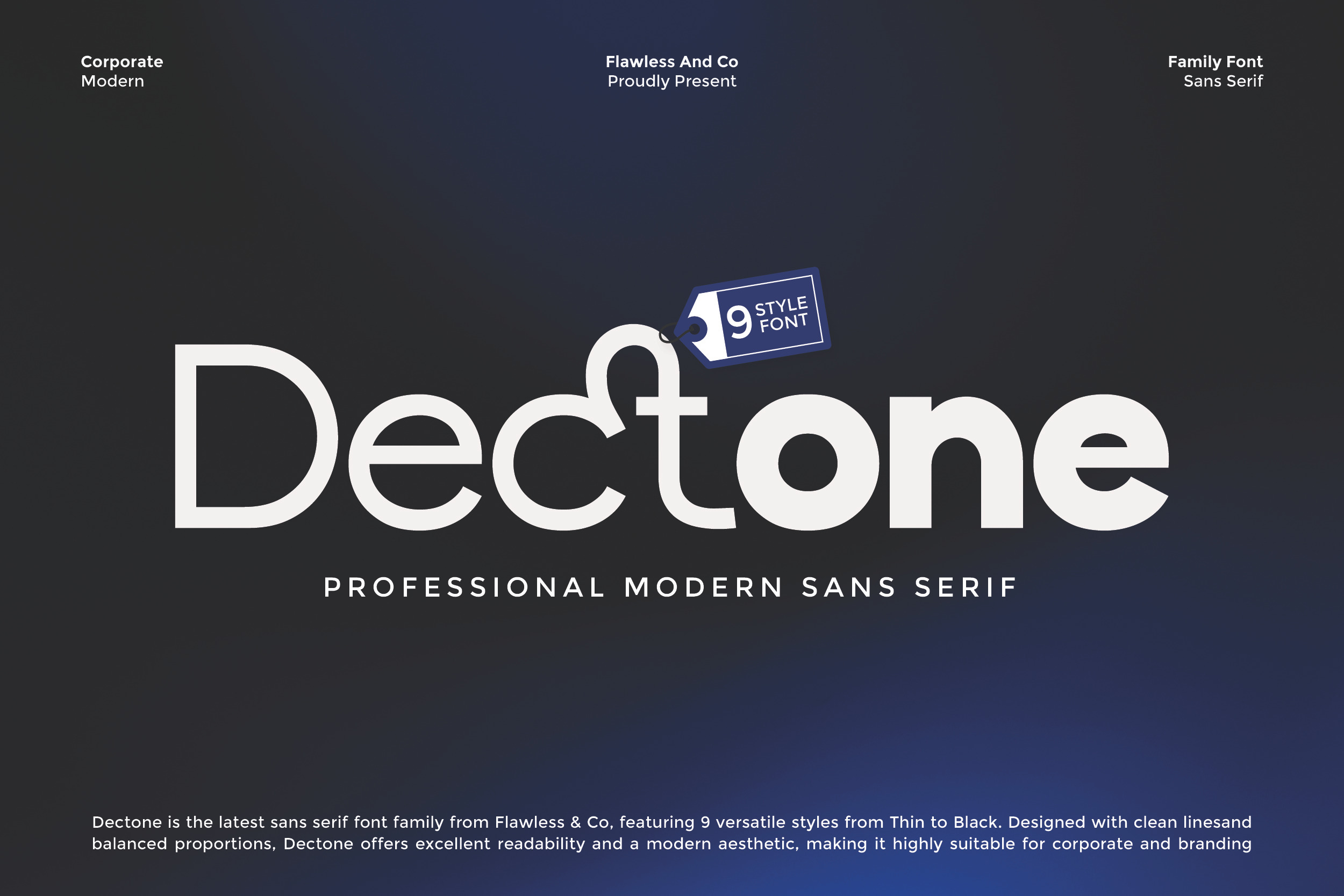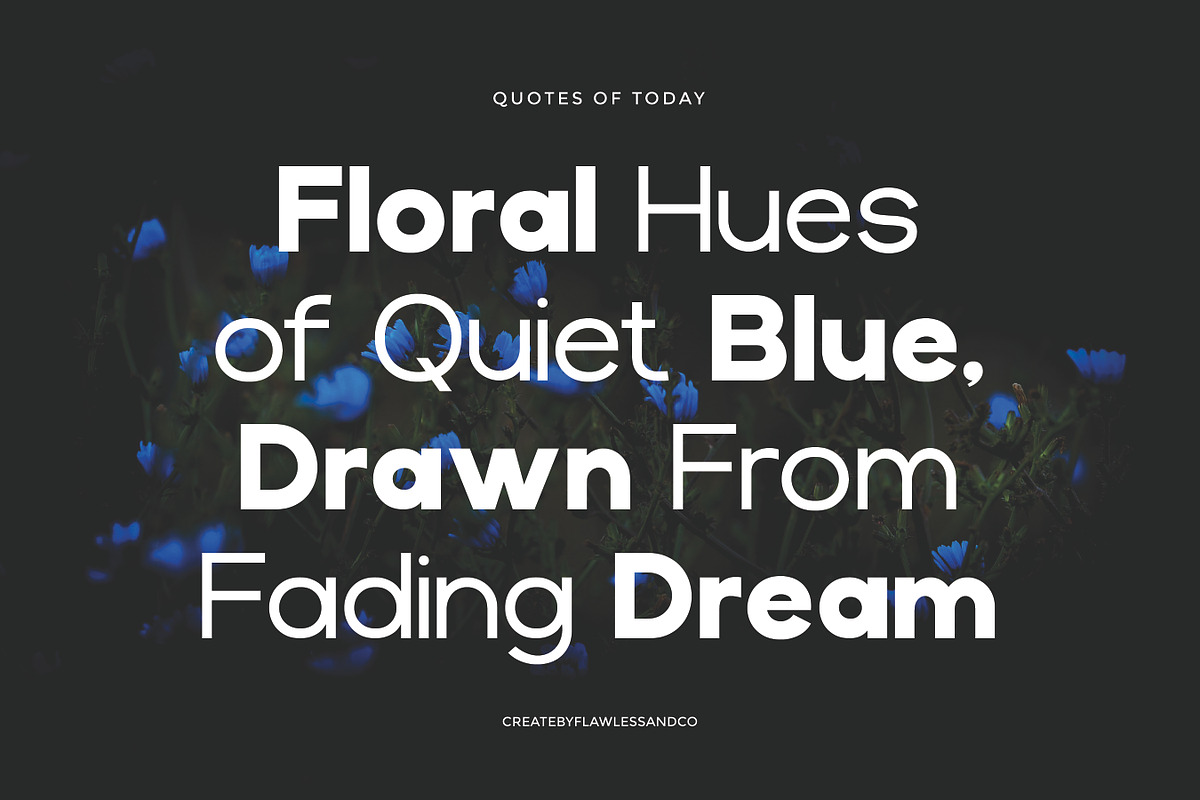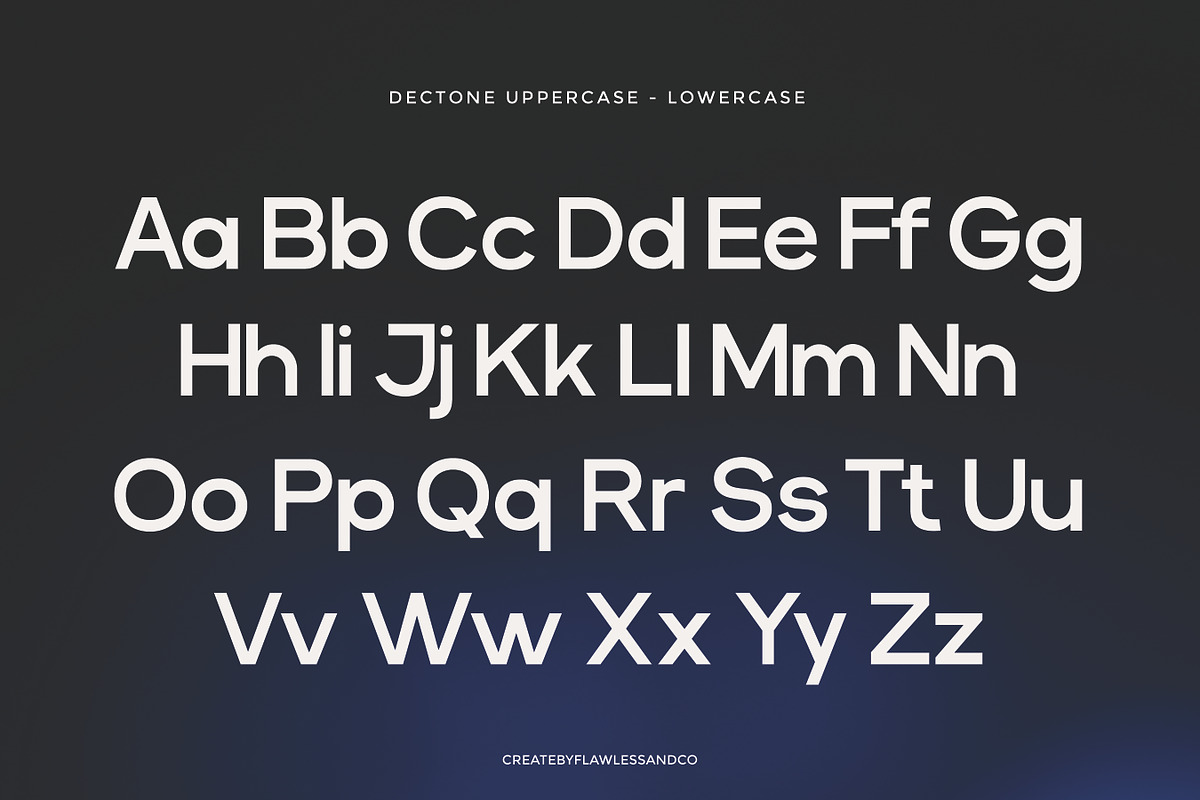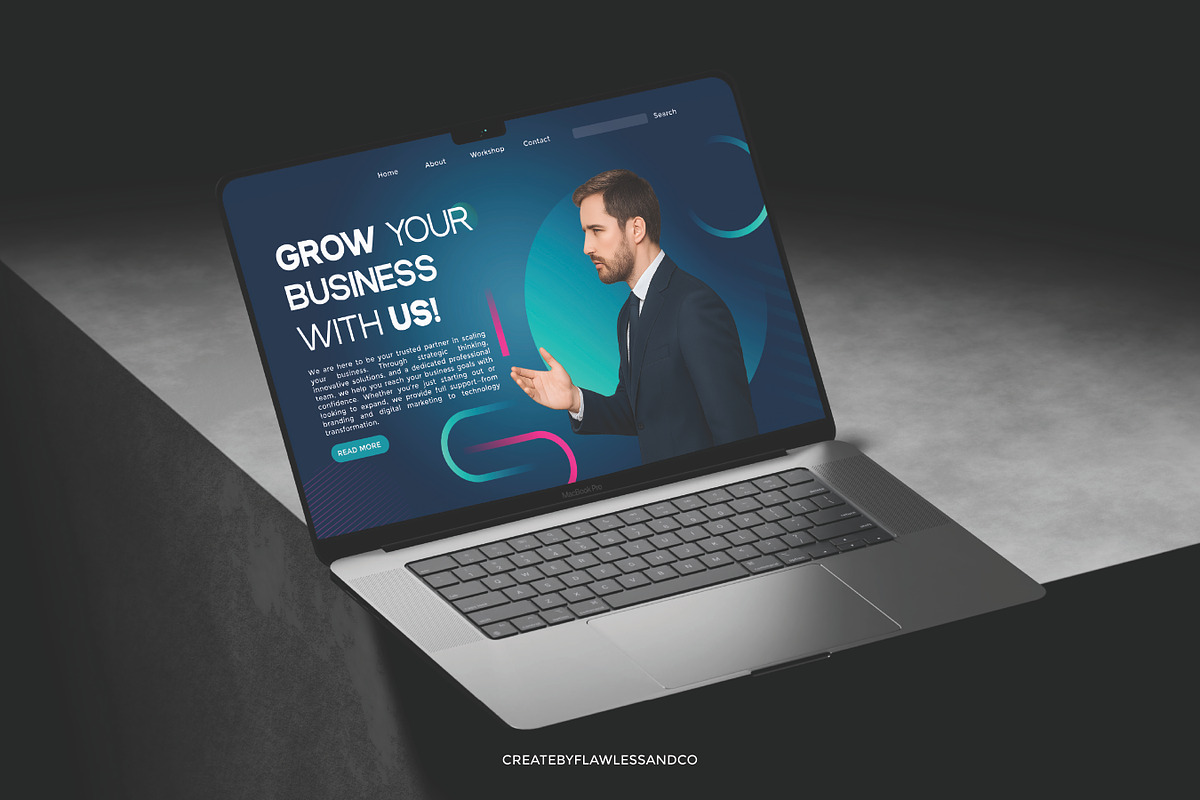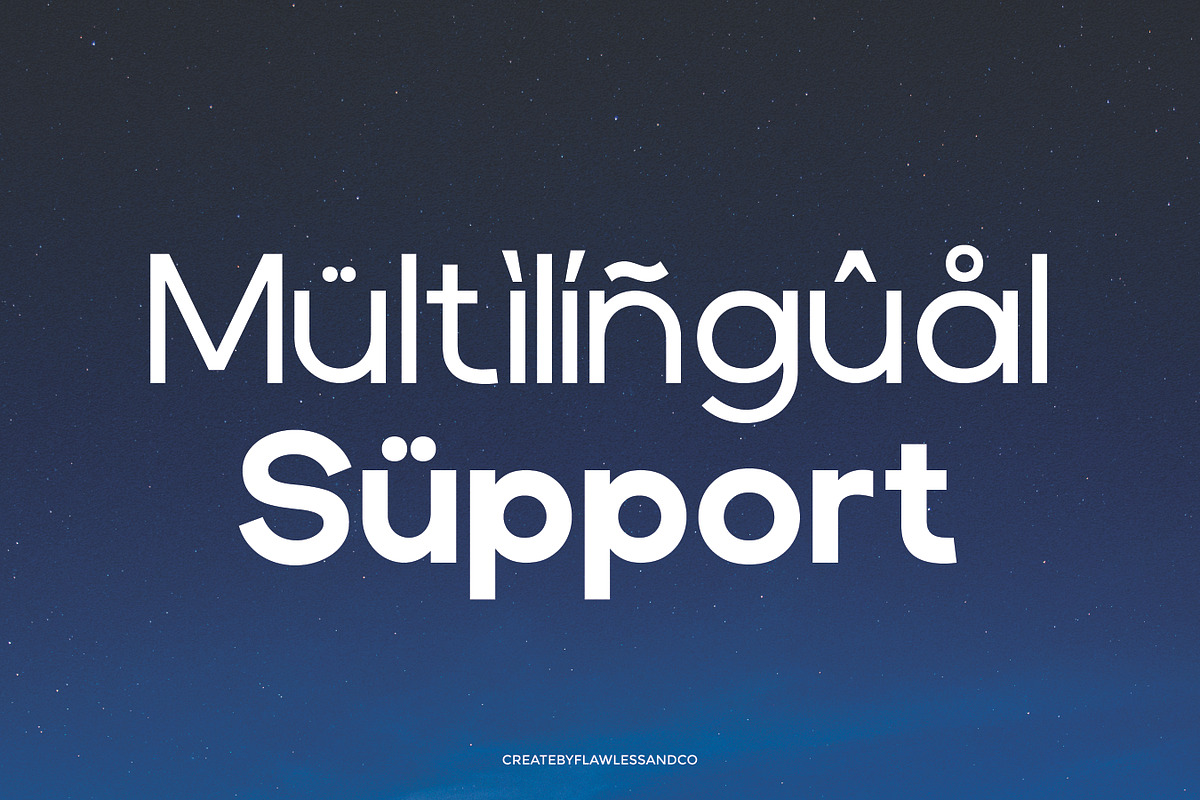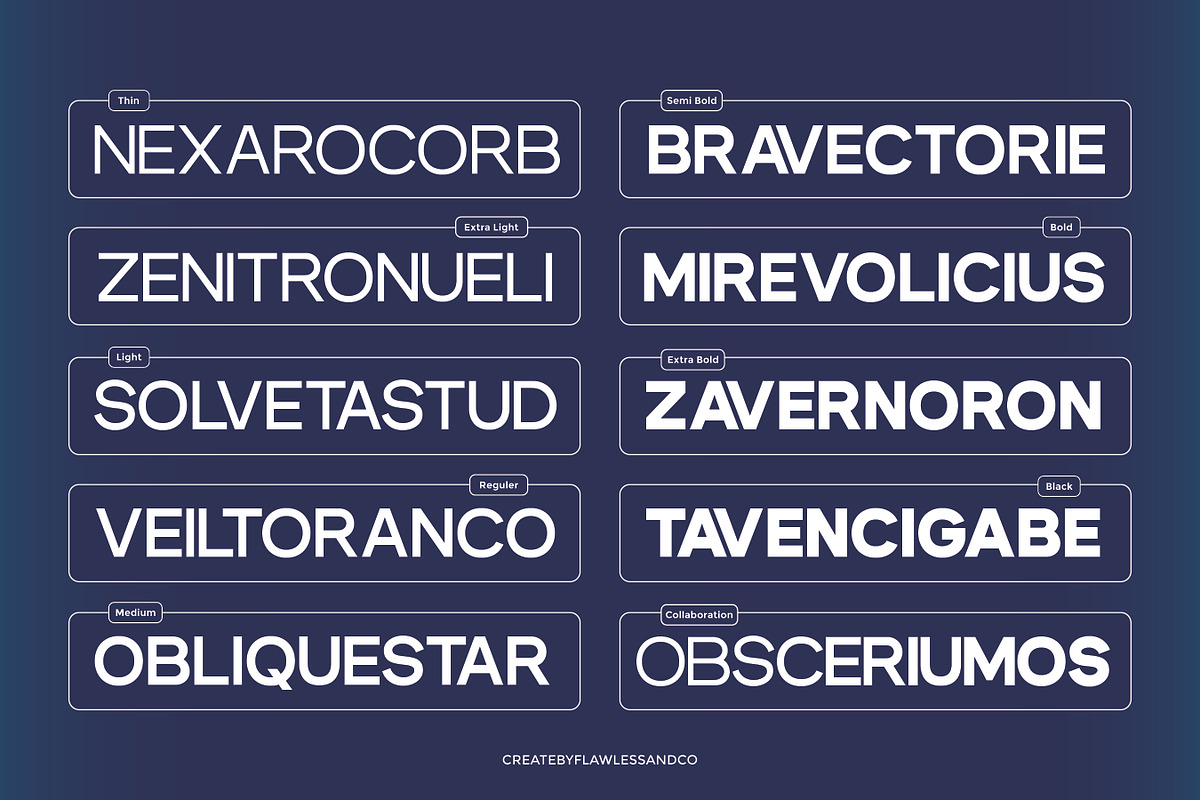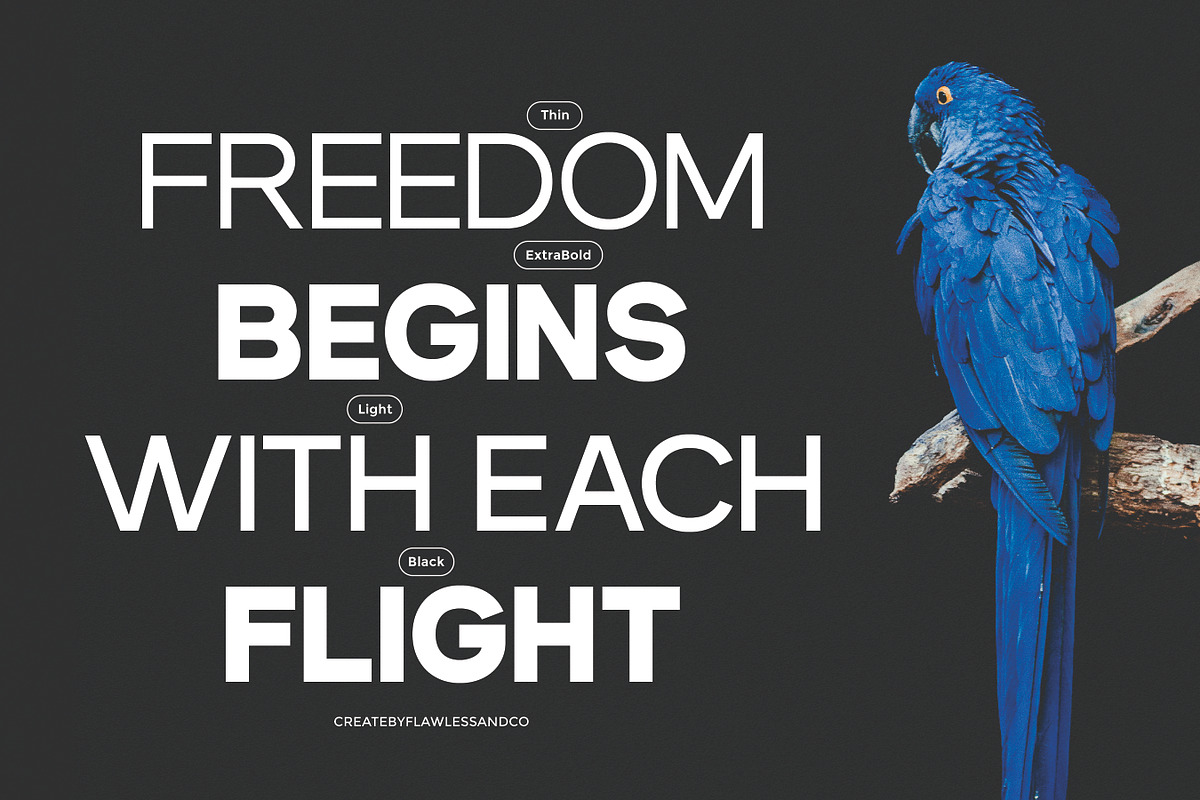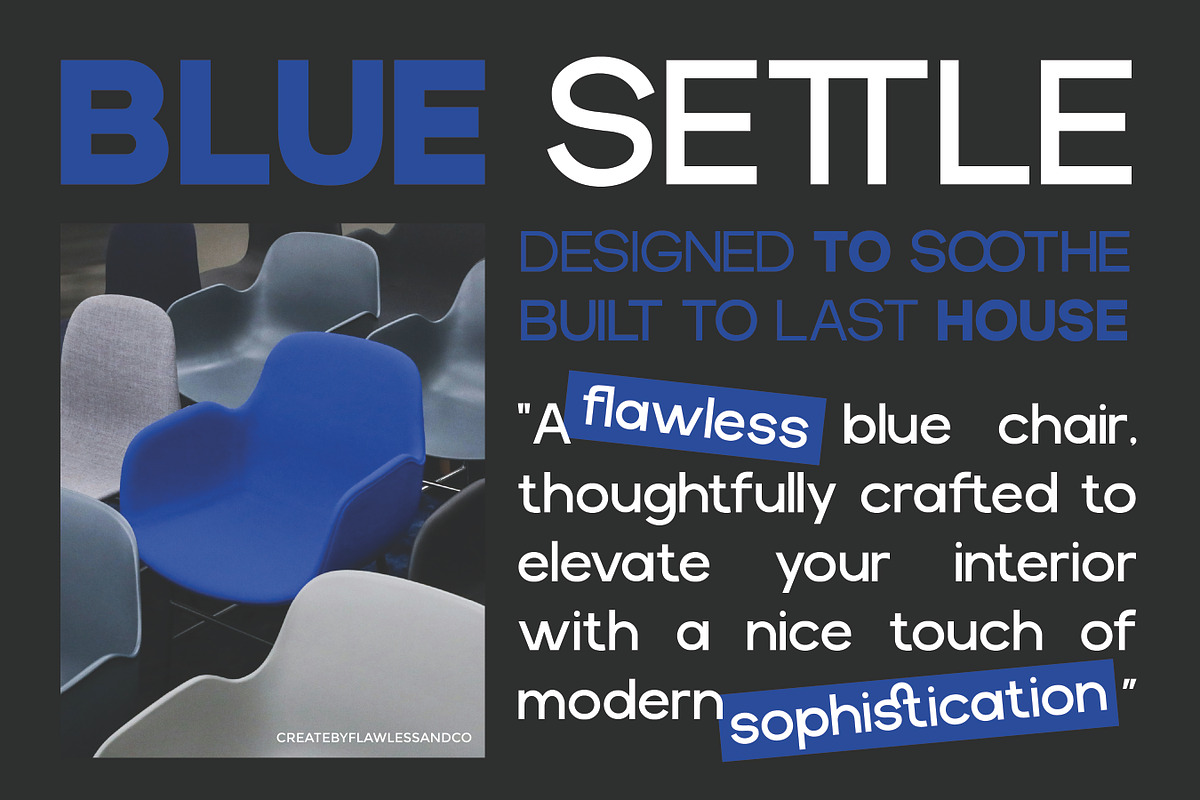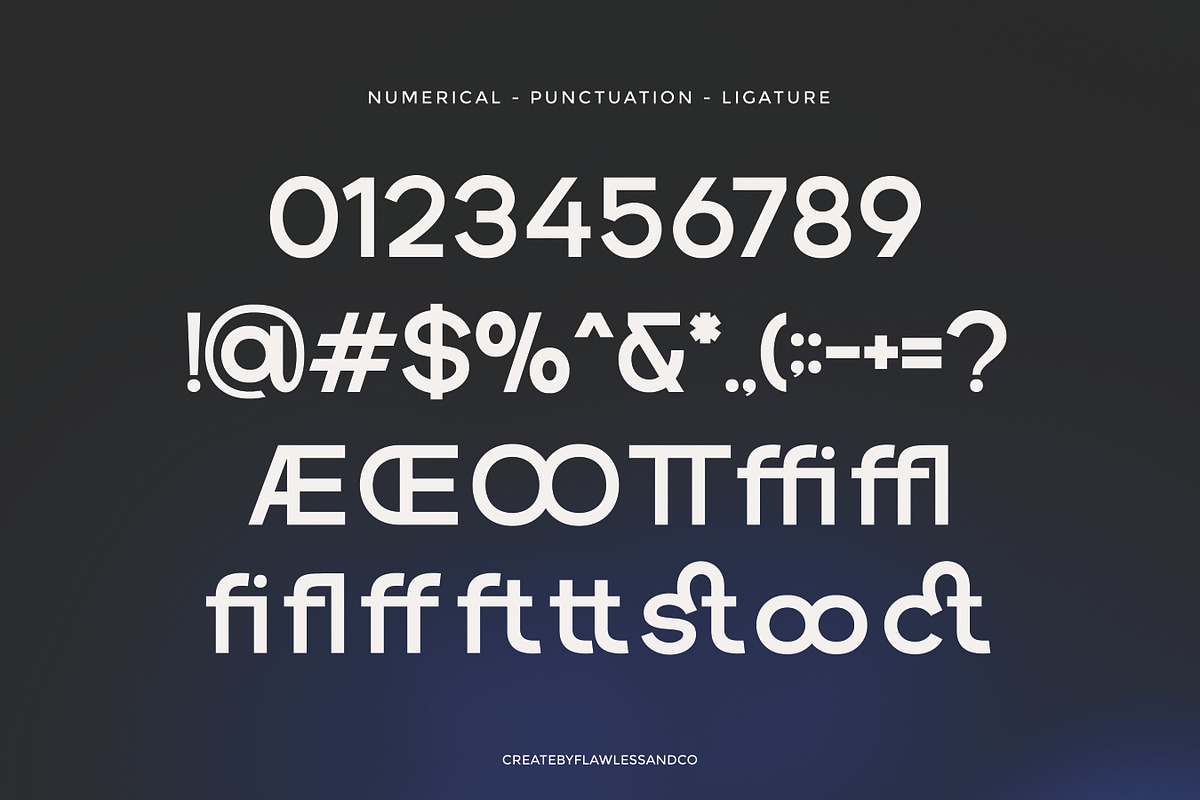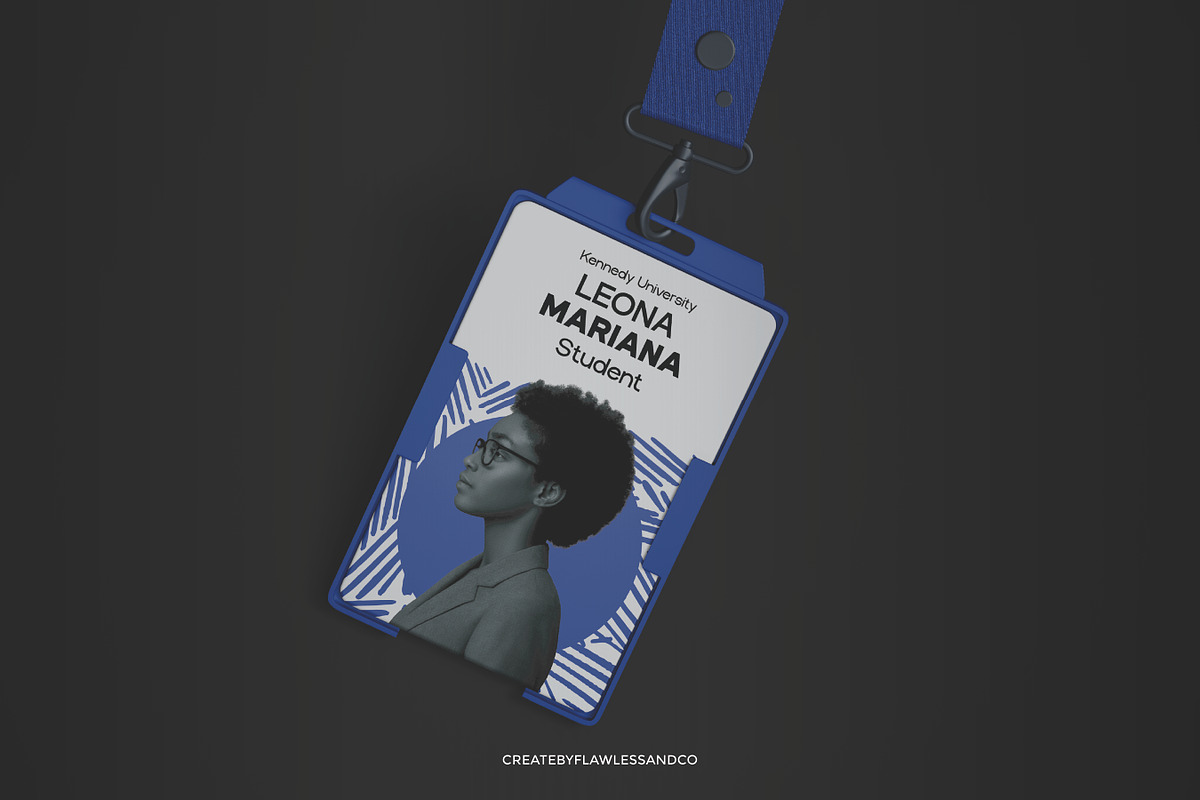
Dectone - Family Sans Serif Font
Dectone - Sans Serif Family Font
Dectone is a modern sans serif family font crafted for professionals who value clarity, versatility, and clean design. Featuring 9 distinctive styles ranging from Thin to Black, Dectone offers designers the flexibility to create dynamic hierarchies and striking compositions across various media. With its balanced proportions, sharp geometry, and smooth readability, Dectone is built to excel in both print and digital platforms. From corporate branding to editorial layouts, from digital interfaces to product packaging, this font family adapts seamlessly to every project.
Who Should Use Dectone ?
Dectone is the perfect choice for designers, creatives, and professionals who seek a versatile and modern sans serif font family. It’s especially suited for:
- Branding experts who need a clean and professional typeface for logos and visual identities
- Graphic designers looking for a flexible font that works across print and digital platforms
- Editorial designers who require stylish yet highly readable typography for magazines, books, and - brochures
- Web and UI designers aiming for clarity and modern aesthetics in interfaces and apps
- Marketing and advertising professionals who want impactful headlines and polished layouts
If you’re building bold designs that demand both functionality and timeless appeal, Dectone is made for you
A Must-Have Font for Brand and Logo Creators and Designers
Dectone is designed for creatives who want their brand and logo projects to stand out with a modern and professional look. Its clean geometry and versatile weights make it the ultimate tool for crafting bold identities, timeless marks, and impactful visuals. For designers who need a font that balances innovation with clarity, Dectone is the must-have choice to bring brand visions to life.
Why Choose Dectone for Brand and Logo Projects?
Dectone offers the perfect blend of style, readability, and versatility—making it an ideal font for professional branding. Its strong letterforms ensure your logos look confident and memorable, while its balanced design adapts seamlessly across digital and print media.
Suitable For:
- Brand identities and professional logo design
- Corporate presentations and business materials
- Editorial layouts, book covers, and magazine titles
- Product packaging and modern stationery
- Creative agencies and design studios
- Social media graphics and marketing campaigns
- Posters, signage, and impactful headlines